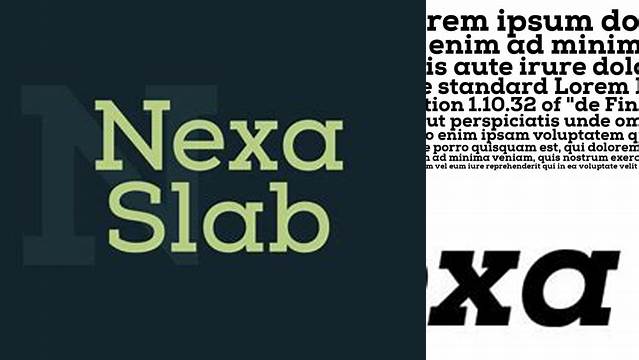
Hey font lovers! Ever stumbled upon a typeface that just screams personality and impact? That's precisely the vibe you get with Nexa Slab Heavy. It's a font that doesn't whisper; it roars, making it a go-to for designers who want their work to stand out. If you're on the hunt for a font that packs a punch, offering both modern flair and robust presence, then diving into the world of Nexa Slab Heavy is a must. This article is your ultimate guide to understanding why this font is so popular, where you can snag a free download, and how you can best utilize its powerful characteristics in your projects. Get ready to elevate your designs with this absolute gem!
Understanding the Power of Nexa Slab Heavy
So, what's the big deal about Nexa Slab Heavy? It's all about its distinctive character. As a slab serif typeface, it boasts thick, blocky serifs that attach to the main strokes of the letters. This feature gives it a sturdy, grounded, and incredibly legible appearance, even at larger sizes. The 'Heavy' in its name isn't just for show; it refers to its substantial weight, meaning it's designed to be bold, commanding, and impossible to ignore. Think of it as the font equivalent of a well-built structure – solid, dependable, and making a statement. This boldness makes it exceptionally suitable for headlines, logos, posters, and any design element where you need to capture immediate attention. Its clean lines and geometric undertones give it a contemporary edge, preventing it from feeling dated. The contrast between its thick serifs and relatively open counters ensures readability, a crucial factor for any typeface, especially one designed for impact. Whether you're working on branding for a new tech startup or designing a striking event poster, Nexa Slab Heavy brings an inherent sense of confidence and strength to the table. It's the kind of font that can transform a simple design into something truly memorable, offering a unique blend of classic slab serif characteristics with a modern, robust aesthetic that appeals to a wide range of contemporary design needs. Its versatility, despite its inherent boldness, is one of its most significant selling points, allowing it to adapt to various contexts and applications with remarkable ease and visual appeal.
Why Choose Nexa Slab Heavy for Your Next Project?
Choosing the right font can often be the make-or-break factor for a design project, guys. And let me tell you, Nexa Slab Heavy is a choice that rarely disappoints. Its primary appeal lies in its unparalleled boldness and impact. When you need your text to command attention, to be the undeniable focal point, this font delivers. Imagine a headline that practically leaps off the page, or a logo that instantly conveys strength and reliability – that's the magic of Nexa Slab Heavy. Beyond its sheer visual weight, the font offers a fantastic blend of modernity and classic charm. Slab serifs have a rich history, but Nexa Slab Heavy injects a contemporary sensibility, making it feel fresh and relevant for today's design landscape. This means you get the timeless appeal of serifs with the sleekness of modern typography. Furthermore, its excellent legibility is a major win. Despite its heavy weight, the designers have ensured that the letterforms are clear and well-defined, preventing it from becoming muddy or difficult to read, especially in shorter bursts of text or when used for longer headlines. This balance between strength and clarity is what makes it so versatile. You're not sacrificing readability for boldness; you're getting both. For branding, it can establish a powerful and trustworthy identity. For editorial design, it can add a dramatic flair to titles and subheadings. And for digital applications, its weight ensures it stands out well on screens, even at smaller sizes. It's a font that adds personality and professionalism simultaneously, making it an incredibly valuable tool in any designer's arsenal. The sheer confidence it exudes can elevate even the simplest of layouts, giving them a professional polish that resonates with viewers and leaves a lasting impression. Its distinctive serifs are not just decorative; they are functional, guiding the eye and anchoring the text, thereby enhancing the overall reading experience. This thoughtful design makes Nexa Slab Heavy a strategic choice for impactful communication.
Exploring the Design Characteristics of Nexa Slab Heavy
Let's get a bit nerdy about the design of Nexa Slab Heavy, shall we? What makes it tick? Well, the most defining feature, as we've touched upon, are those thick, slab serifs. They're not delicate; they're robust, almost architectural, giving the font a substantial feel. These serifs are typically uniform in width, contributing to the font's blocky, strong appearance. But it's not just about the serifs. Look closely at the letterforms themselves. You'll notice clean, geometric shapes. The bowls of letters like 'o' and 'e' are often circular or near-circular, and the strokes have a consistent width, minus the serifs. This geometric precision gives Nexa Slab Heavy a modern, almost minimalist undertone, which is a fantastic counterpoint to the traditional feel of slab serifs. The x-height (the height of lowercase letters like 'x') is typically generous, which contributes significantly to its readability. A larger x-height means the lowercase letters are more prominent relative to the ascenders and descenders, making words easier to distinguish, especially at smaller sizes. The contrast in the font, while not as dramatic as in some traditional serifs, is still present and plays a role in its visual appeal. The thick strokes and serifs anchor the text, while the slightly more refined counterforms (the open spaces within letters) provide breathing room and prevent it from feeling too dense. The overall mood it evokes is one of stability, reliability, and confidence. It's approachable yet authoritative. This thoughtful combination of robust serifs, geometric structure, and balanced proportions makes Nexa Slab Heavy a highly effective and visually pleasing typeface. Its design is a testament to how traditional typographic elements can be reinterpreted with a modern sensibility to create something both powerful and functional. The careful consideration of each curve, line, and serif contributes to its overall impact, ensuring it performs exceptionally well across a variety of applications, from bold headlines to impactful branding elements, making it a truly versatile and well-crafted font choice for designers seeking both style and substance in their typography.
Tips for Using Nexa Slab Heavy Effectively
Okay, so you've downloaded Nexa Slab Heavy, and you're itching to use it. But how do you make sure it shines? It's all about context and pairing, guys. First off, leverage its boldness for headlines and display text. This is where Nexa Slab Heavy truly excels. Think titles, subheadings, call-to-action buttons, or any text that needs to grab immediate attention. Its weight ensures it won't get lost in the visual noise. Secondly, don't overuse it. Because it's so strong, using Nexa Slab Heavy for body text can be overwhelming and reduce readability. Reserve it for those impactful moments. For complementary text, pair it with a clean sans-serif or a lighter serif font. A simple, elegant sans-serif like Open Sans or Lato can provide a nice contrast, allowing Nexa Slab Heavy to remain the star of the show. When designing logos and branding, Nexa Slab Heavy can communicate strength, reliability, and a modern edge. Its distinctive character makes it memorable. Just ensure the overall brand personality aligns with the font's robust feel. Consider the negative space. Because the font is heavy, giving it plenty of breathing room in your layout is essential. Avoid cramming it alongside other elements; let it have its space to make its statement. Finally, experiment with color. While it looks great in black and white, don't be afraid to explore how different colors affect its mood and impact. A vibrant color can add energy, while a darker, muted tone can enhance its sense of sophistication. By following these tips, you can ensure Nexa Slab Heavy isn't just used, but used brilliantly.
Maximizing Readability with Nexa Slab Heavy
Readability is king, even with a bold font like Nexa Slab Heavy. While its primary strength is impact, smart usage can ensure your message is not just seen but also easily understood. The key is to use it strategically. Reserve Nexa Slab Heavy for display purposes – think headlines, titles, pull quotes, and short, punchy statements. Its substantial weight and distinctive slab serifs are perfect for drawing the eye and making these elements stand out. For longer blocks of text, like body copy, it's generally advisable to opt for a different, more legible typeface. Pairing Nexa Slab Heavy with a simpler, lighter font is crucial. A clean sans-serif font with a generous x-height, or even a more traditional, lighter serif font, can provide a welcome contrast and ensure smooth reading for extended passages. When using Nexa Slab Heavy for headlines, ensure adequate letter spacing (kerning). Sometimes, very bold fonts can feel a bit cramped if the letters are too close together. Adjusting the space between characters can improve both aesthetics and readability. Pay attention to the line height (leading) as well. Generous leading between lines of text using Nexa Slab Heavy will prevent the heavy strokes from appearing to bleed into each other, creating a clearer visual separation and making the text easier to scan. Consider the context and size. While Nexa Slab Heavy is quite legible for its weight, its performance can vary depending on the screen resolution or print quality. Test it at the intended sizes and on the final medium to confirm it meets your readability requirements. By consciously applying these principles, you can harness the immense power and visual appeal of Nexa Slab Heavy without compromising the clarity and accessibility of your content, ensuring your design is both striking and functional for your audience. It’s all about finding that sweet spot between making a bold statement and ensuring your message is crystal clear.
Integrating Nexa Slab Heavy into Branding Projects
When it comes to branding, Nexa Slab Heavy is a fantastic choice for making a powerful first impression. Its inherent strength and modern aesthetic can instantly convey qualities like reliability, stability, and a forward-thinking approach. Think about companies that want to project an image of robustness and trustworthiness – Nexa Slab Heavy fits that bill perfectly. For logo design, its distinctive shape makes it instantly recognizable. Using it for a brand name or a key tagline can create a memorable visual anchor. However, remember that logos often need to work at very small sizes, so ensure the chosen weight and letterforms remain clear. You might consider using a slightly lighter variant or ensuring ample spacing if legibility at micro-sizes is a concern. In marketing materials, such as brochures, advertisements, or website banners, Nexa Slab Heavy can be used for headlines and subheadings to capture attention immediately. Its boldness ensures that key messages are not missed. For instance, a financial institution might use it to convey a sense of security and financial strength, while a construction company could use it to emphasize durability and solid foundations. The key is to align the font's personality with the brand's core values. If a brand is about innovation and speed, a lighter, more dynamic font might be better. But if it's about steadfastness and impact, Nexa Slab Heavy is a strong contender. When pairing it with other fonts for body copy or secondary text, choose something that complements its weight without competing. A clean, minimalist sans-serif often works wonders, providing balance and ensuring the overall brand identity feels cohesive and professional. By thoughtfully integrating Nexa Slab Heavy into your branding strategy, you can effectively communicate your intended message and create a visually compelling identity that resonates with your target audience, solidifying your brand’s presence in a crowded marketplace.
The Versatility of Nexa Slab Heavy Across Different Media
One of the most compelling aspects of Nexa Slab Heavy is its remarkable versatility across various media platforms. Whether you're designing for print, web, or even physical signage, this font holds its own, bringing a consistent sense of impact and style. In print design, from magazine layouts and book covers to posters and flyers, Nexa Slab Heavy commands attention. Its robust weight ensures that headlines pop off the page, making information easily digestible and visually engaging. It lends a sophisticated yet strong feel to editorial content, especially when used for feature titles or bold subheadings that break up larger blocks of text. On the web, Nexa Slab Heavy is equally effective. Its clarity and distinctiveness make it suitable for website headlines, calls-to-action, and even short navigational elements. While body text might require a lighter counterpart, its presence in key areas ensures a strong visual hierarchy and brand consistency. Web designers often appreciate its clean rendering across different browsers and screen sizes, contributing to a seamless user experience. For digital advertising, its boldness is a significant asset. Banner ads and social media graphics benefit immensely from fonts that can grab attention quickly in a scrolling feed. Nexa Slab Heavy delivers this impact without appearing cluttered or overly aggressive. Furthermore, consider its application in physical spaces. Think signage for retail stores, exhibition graphics, or even large-format printing. The sheer presence of Nexa Slab Heavy makes it ideal for ensuring messages are seen and remembered from a distance. Its sturdy construction translates well to large-scale applications, reinforcing a sense of permanence and authority. This adaptability across print, digital, and physical mediums makes Nexa Slab Heavy a truly valuable asset for designers looking for a font that performs consistently well, no matter the application, offering a reliable and impactful typographic solution for a wide array of design challenges.
Nexa Slab Heavy vs. Other Bold Slab Serifs
It's always a good idea, guys, to compare and contrast, right? How does Nexa Slab Heavy stack up against other popular bold slab serif fonts? Let's take a look. Many bold slab serifs share the common trait of heavy serifs and a strong presence, but the nuances lie in their construction and overall feel. Take, for example, Rockwell. Rockwell is a classic slab serif, known for its very uniform, blocky serifs and sturdy, almost industrial feel. Compared to Nexa Slab Heavy, Rockwell can sometimes feel a bit more traditional and less geometric. Nexa Slab Heavy, with its cleaner, more modern lines, often feels more contemporary and versatile for today's design trends. Then there's Arvo, a slab serif available on Google Fonts, which offers a nice balance of robustness and readability. Arvo tends to have slightly more character in its curves and serifs, perhaps feeling a tad more